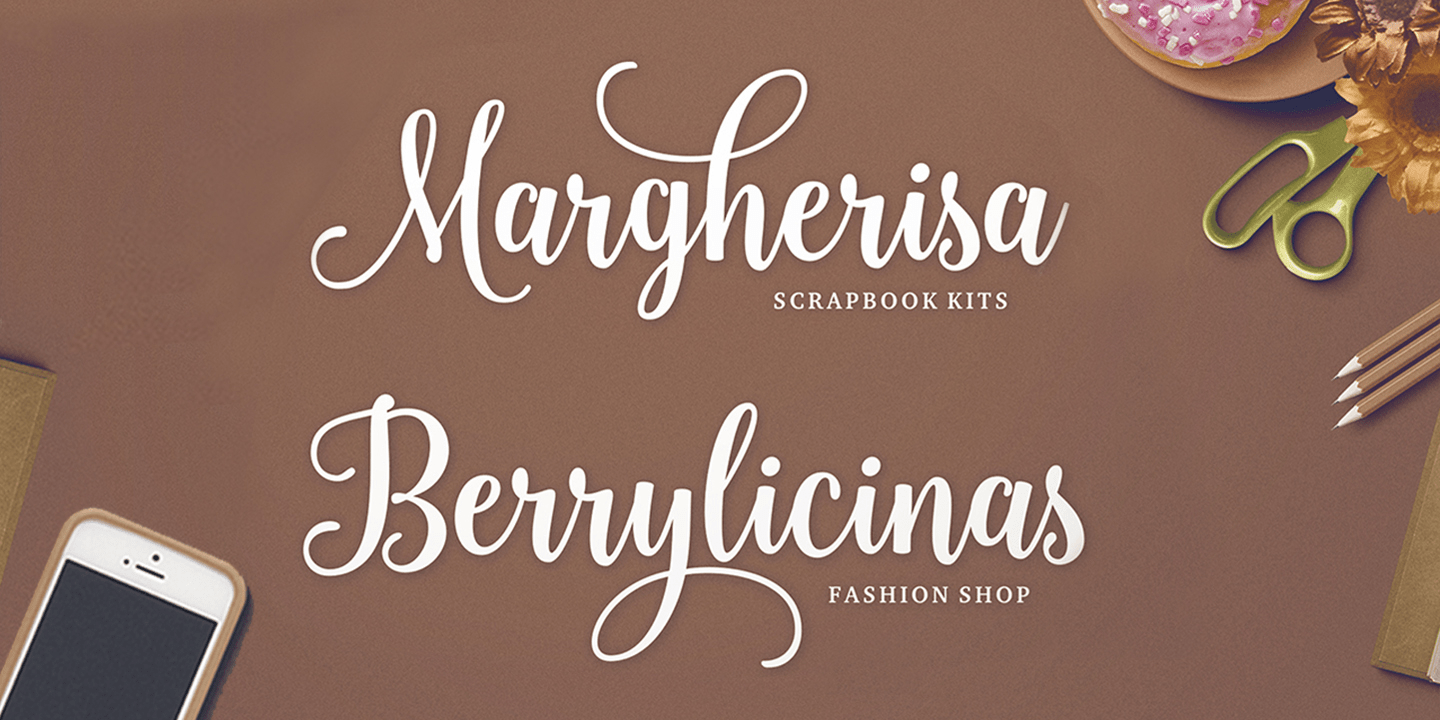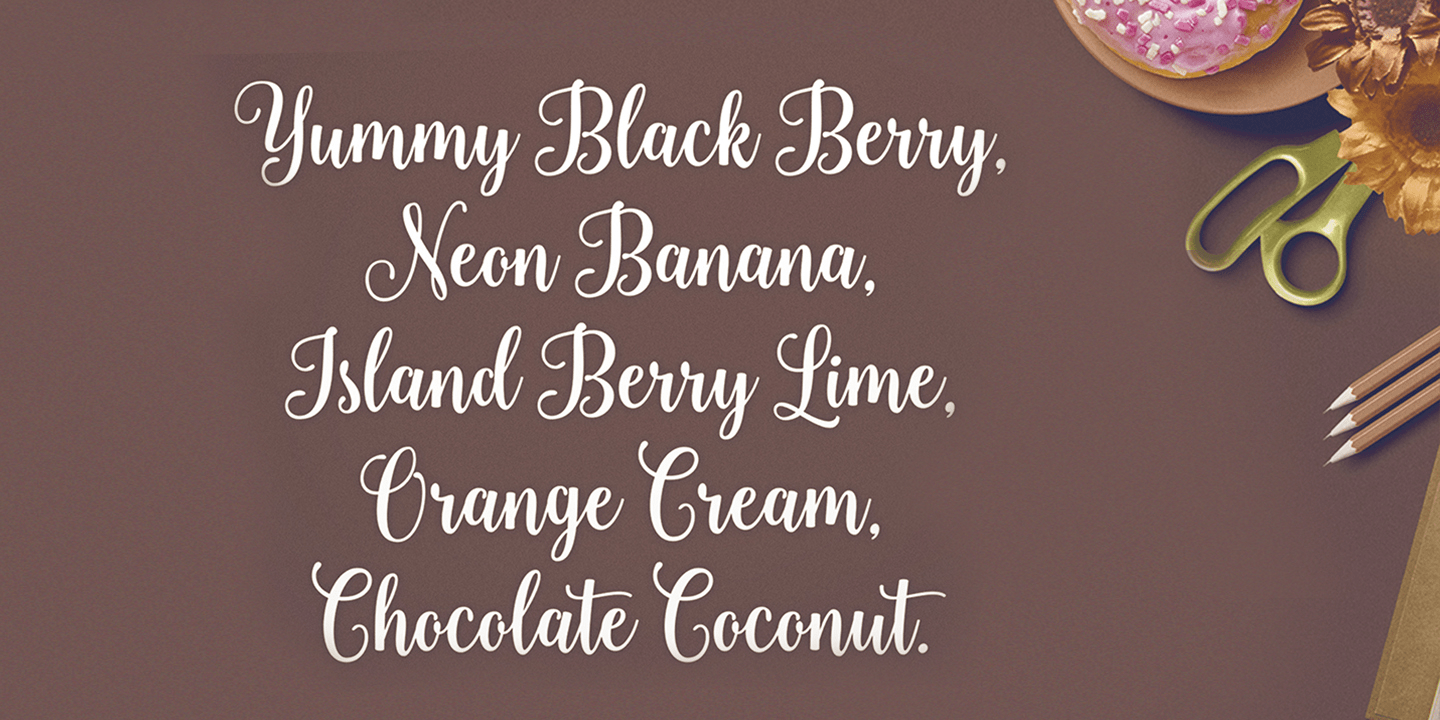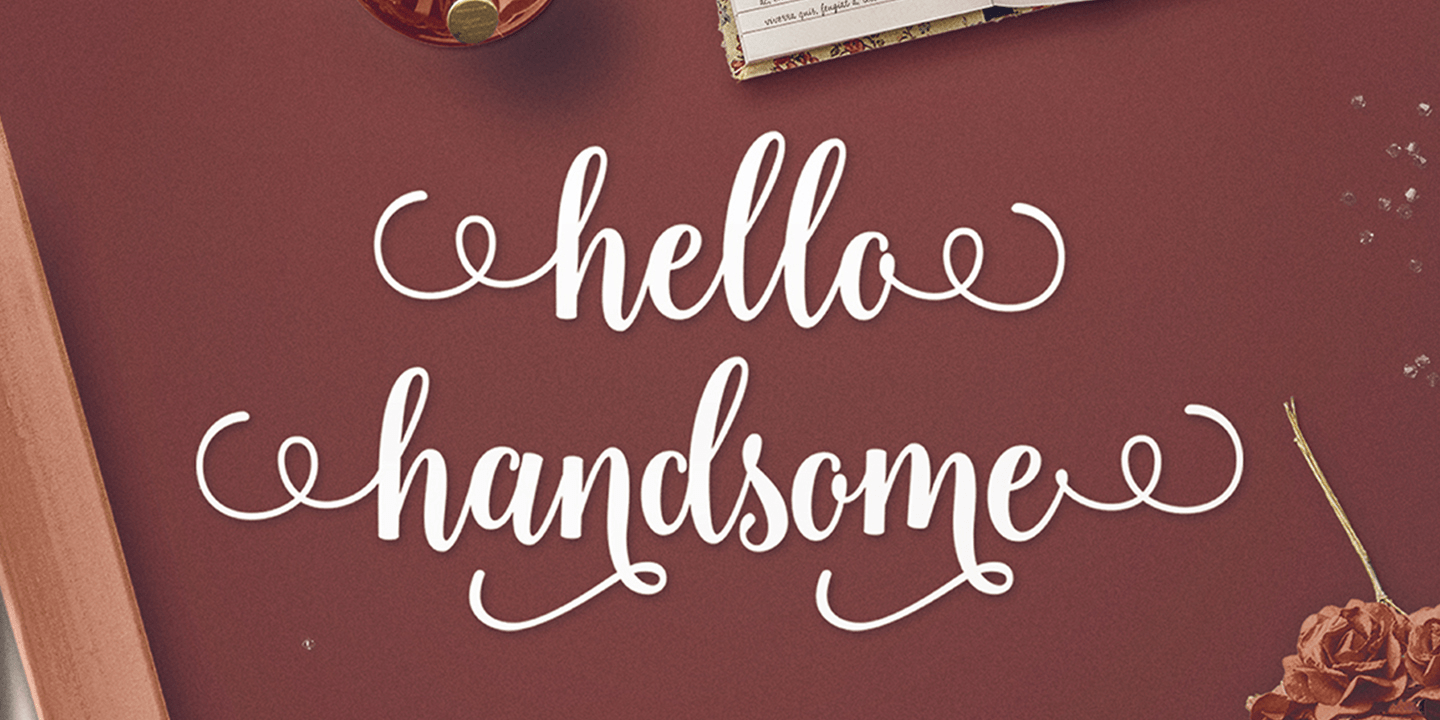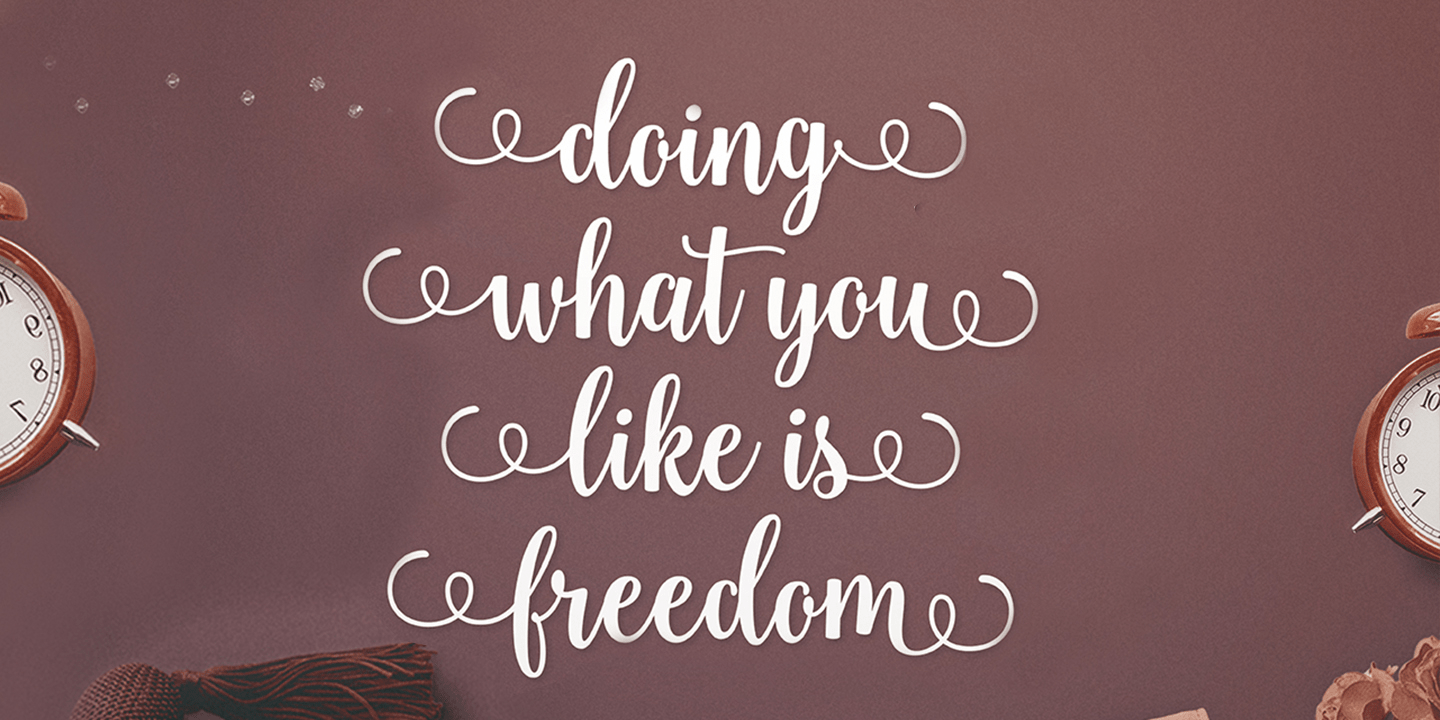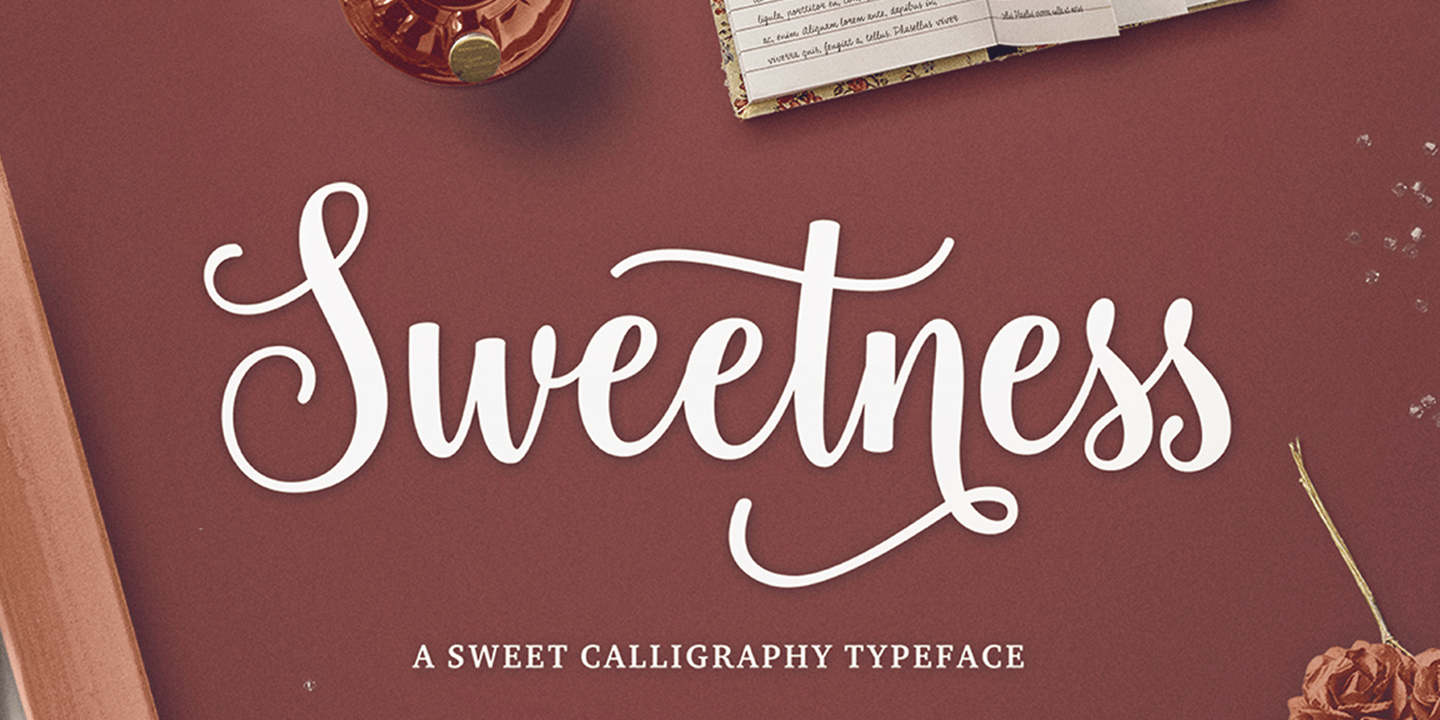
Sweetness Script
About Sweetness Script
Sweetness Script is a soft and sweet calligraphy typeface with characters that dance along the baseline. It has a casual and yet elegant touch. It can be used for various purposes such as logos, wedding invitations, headings, t-shirts, letterhead, signage,…